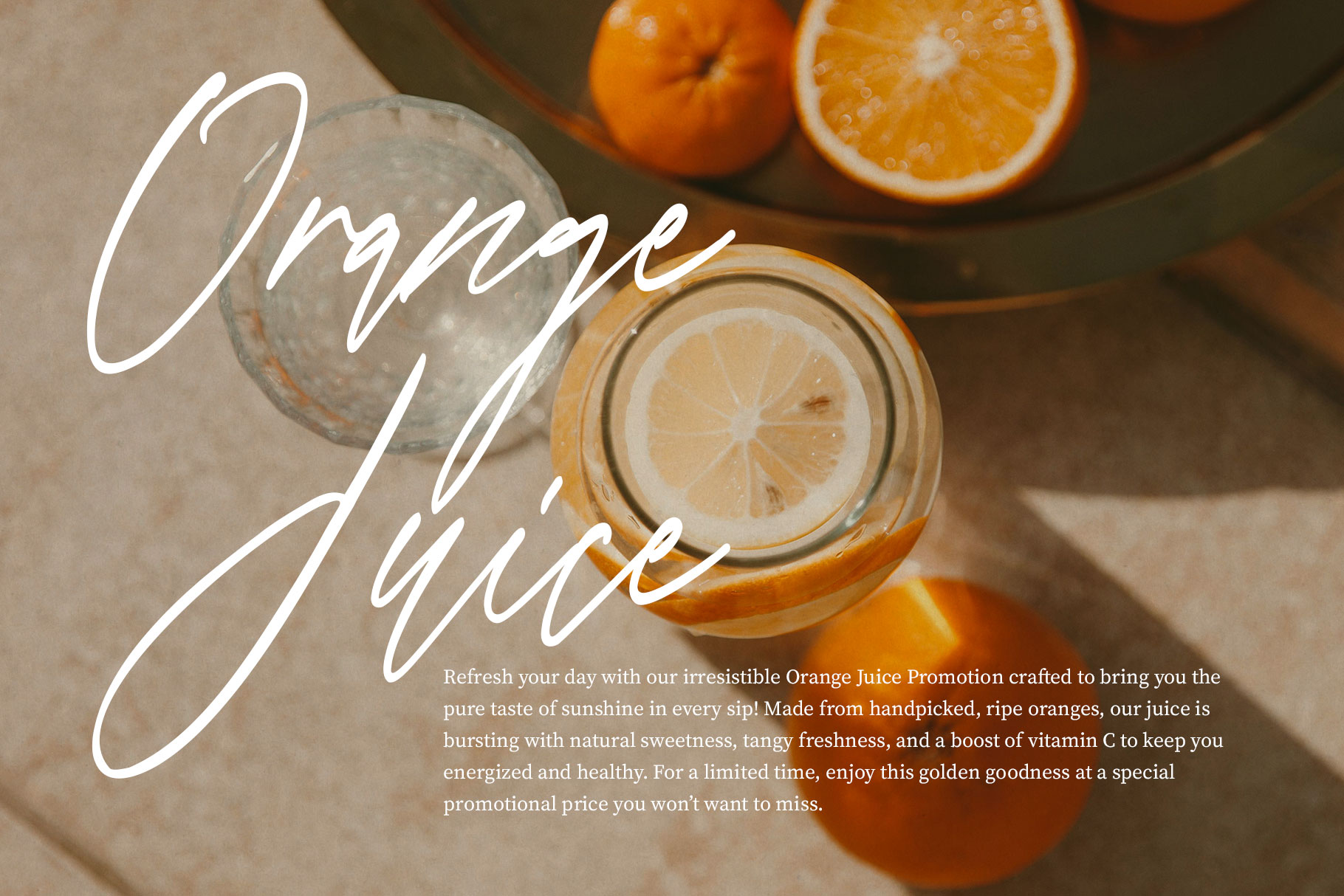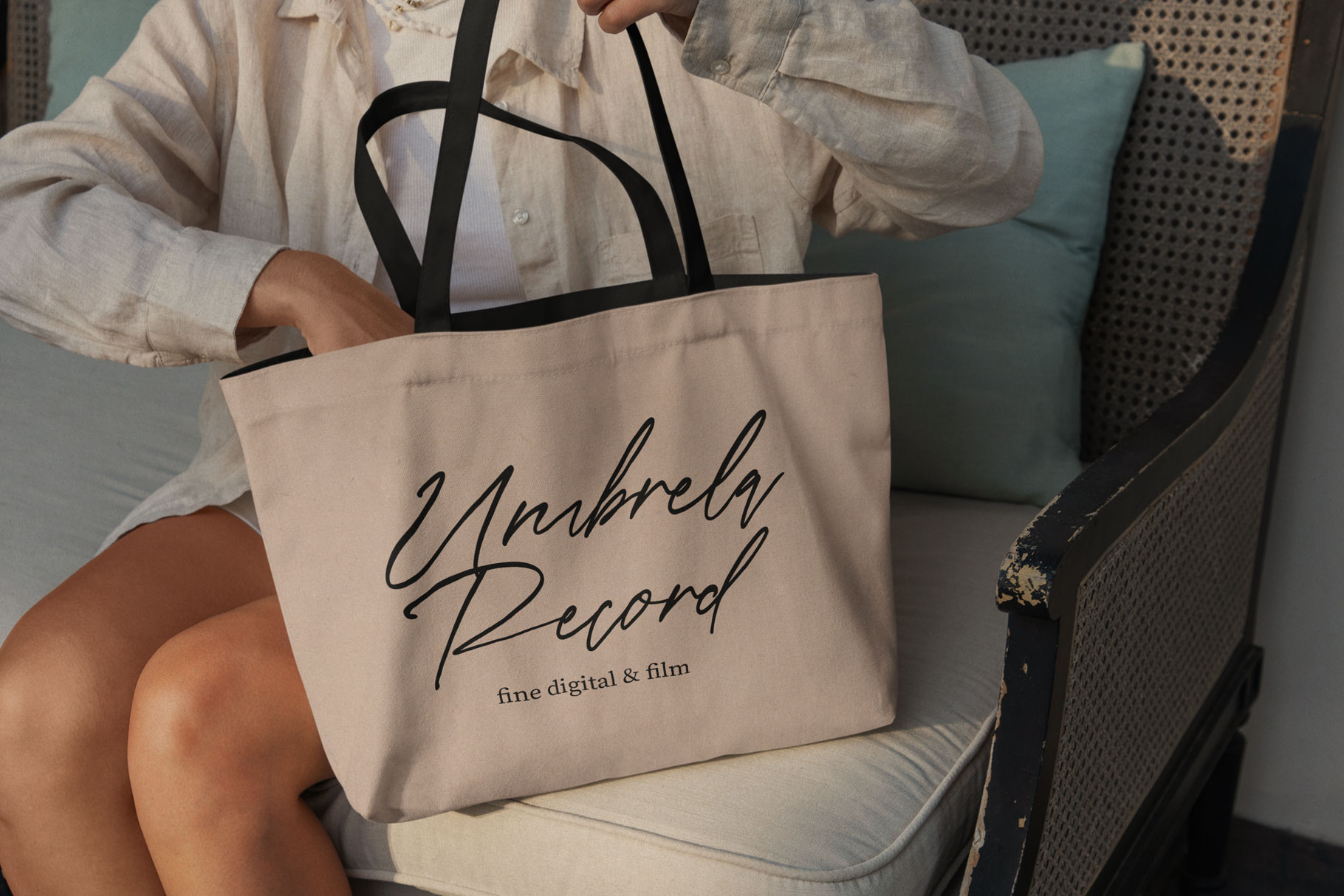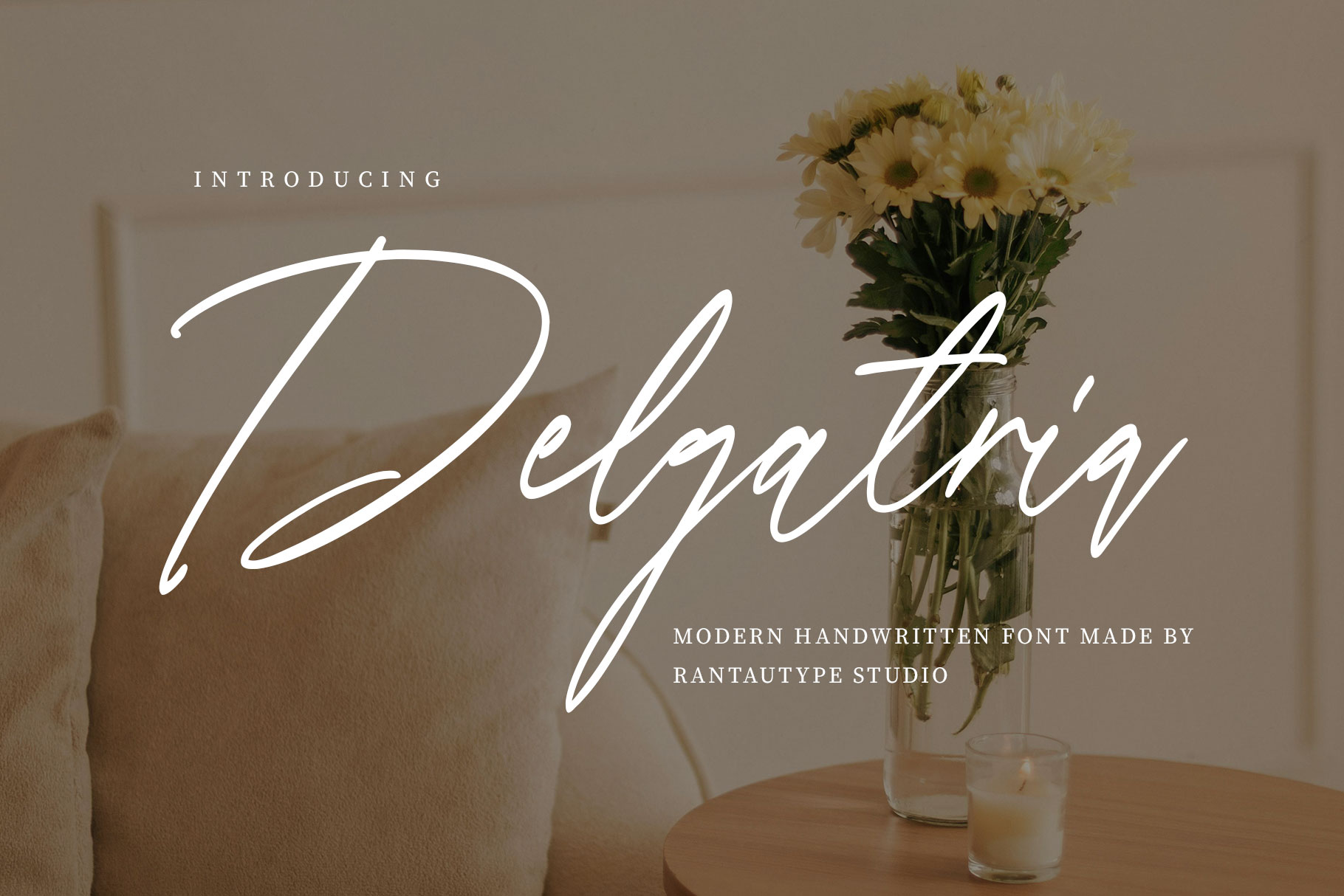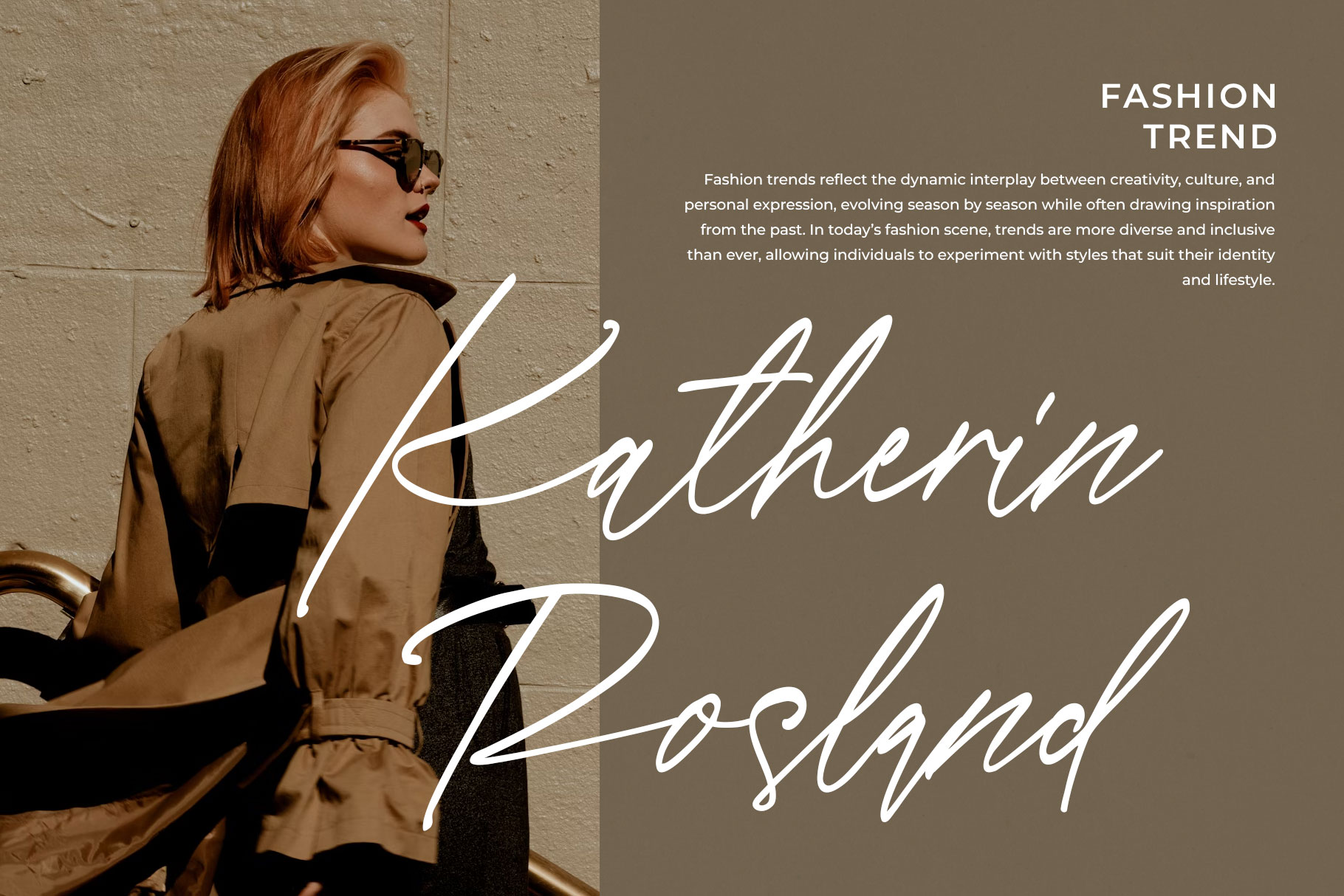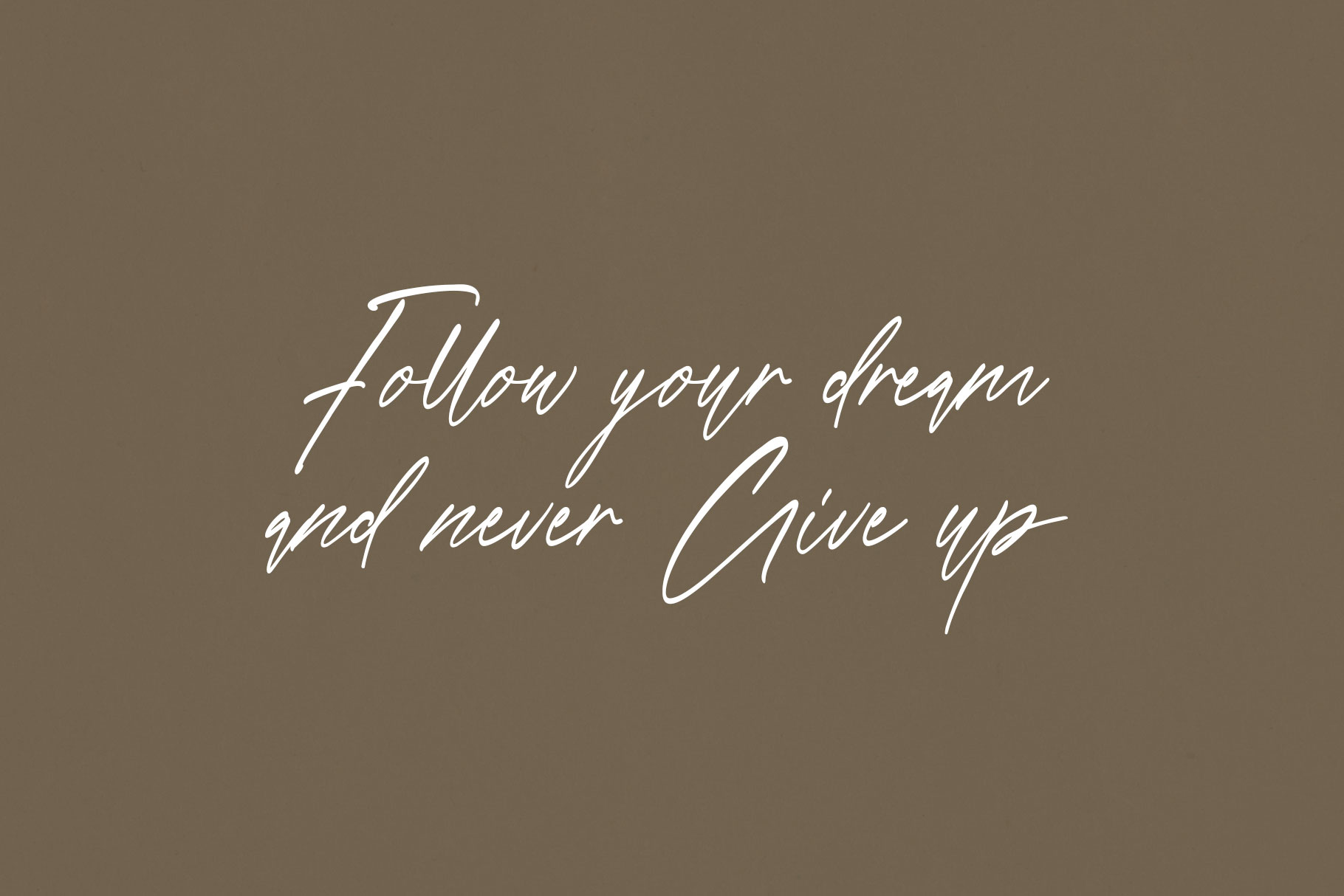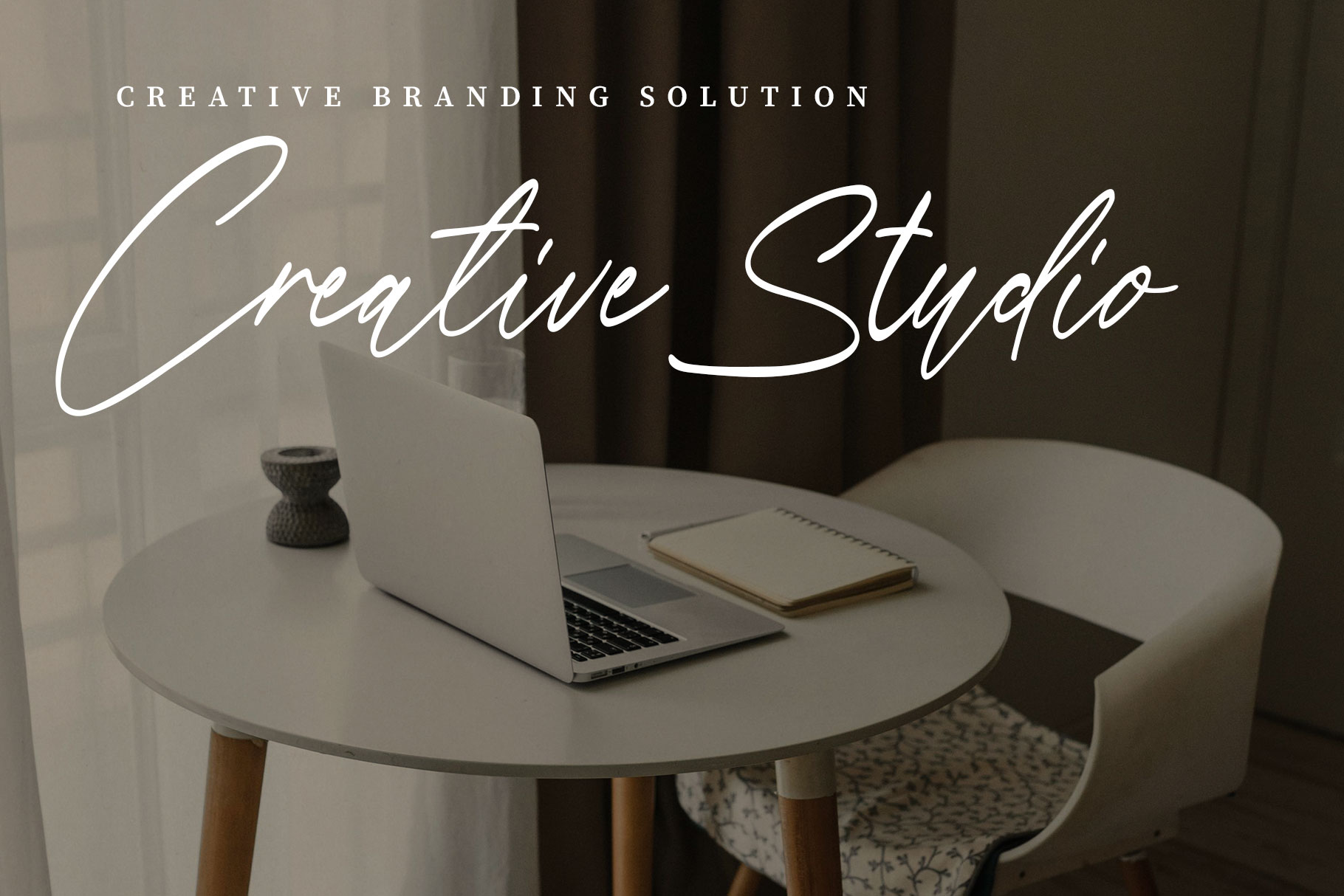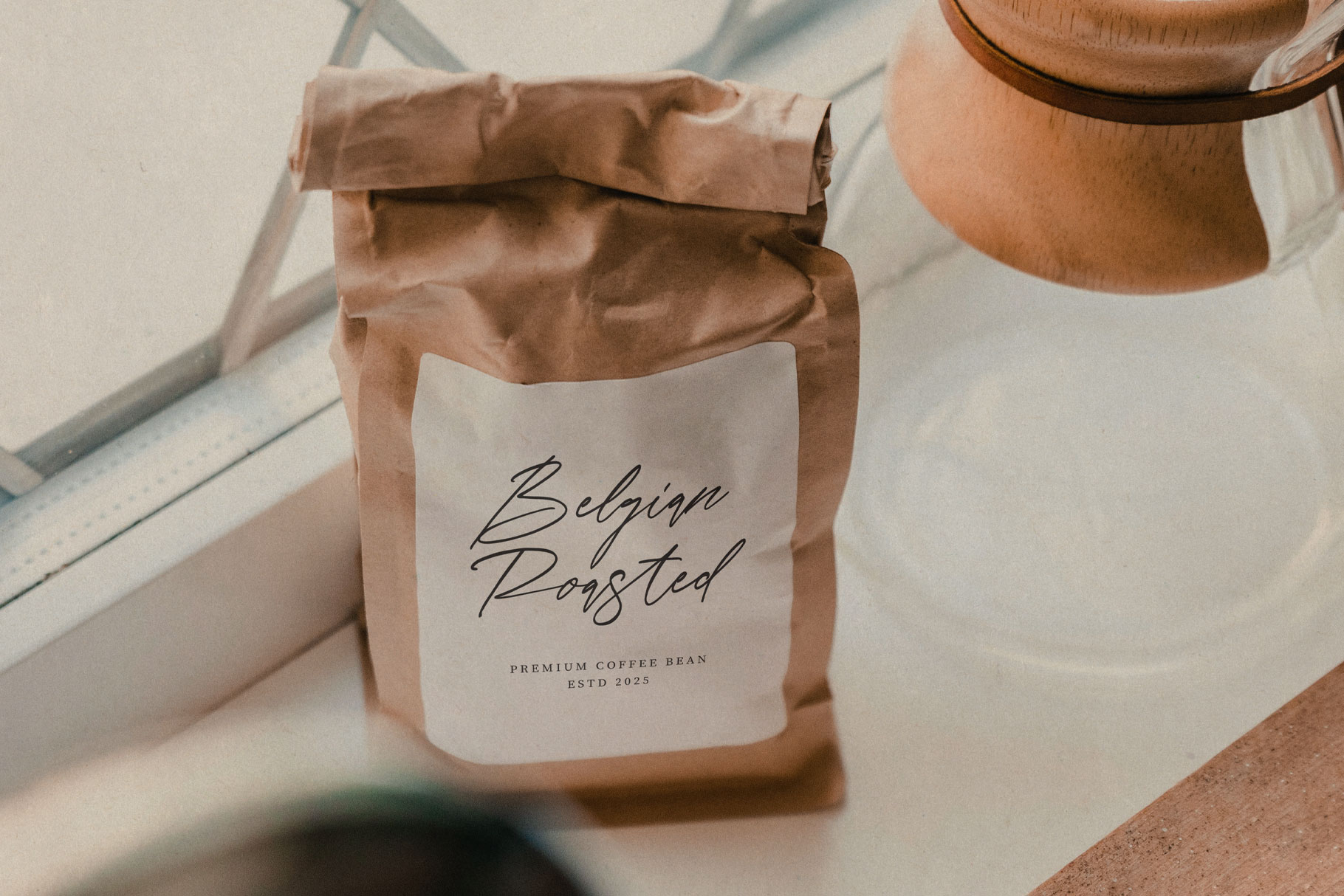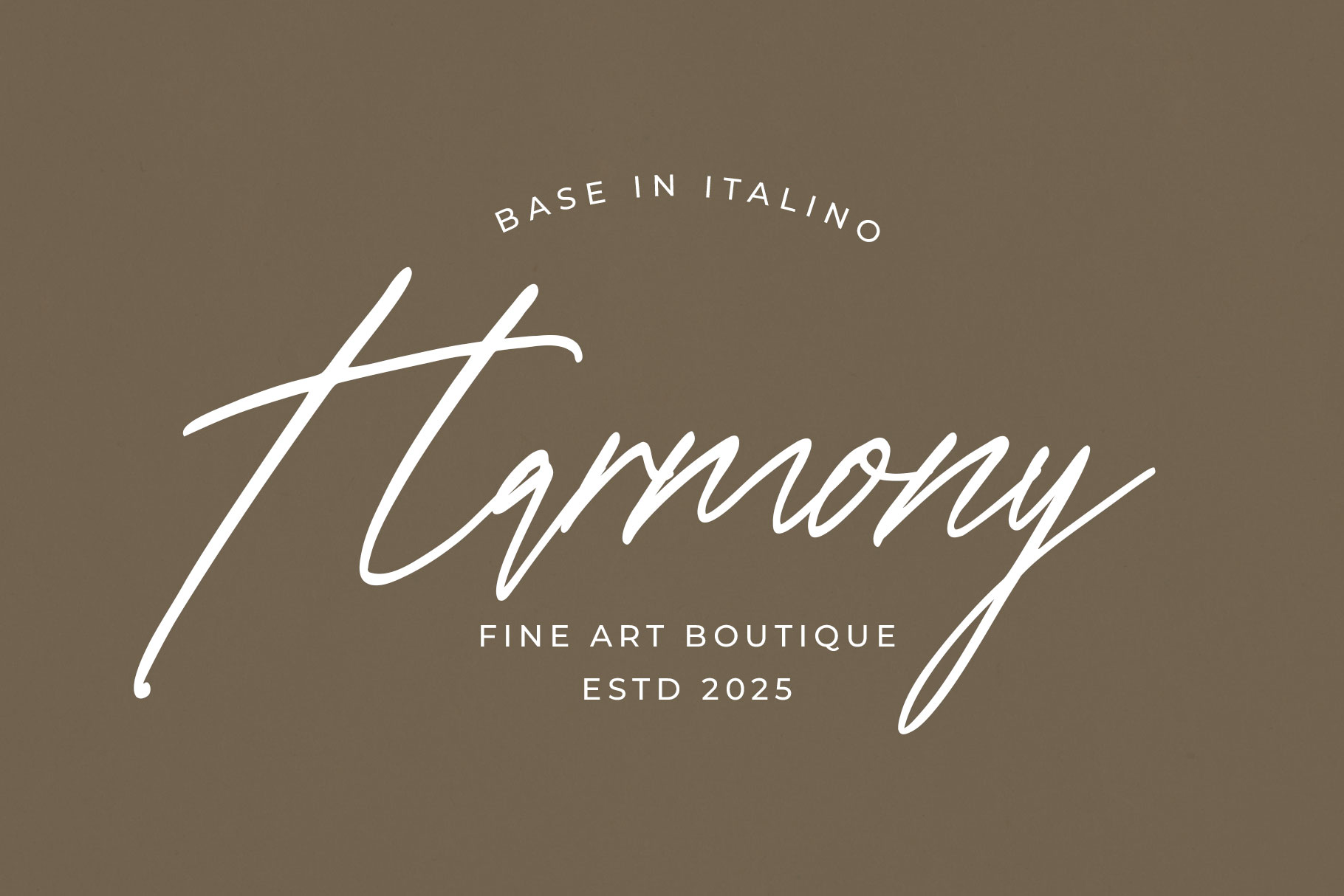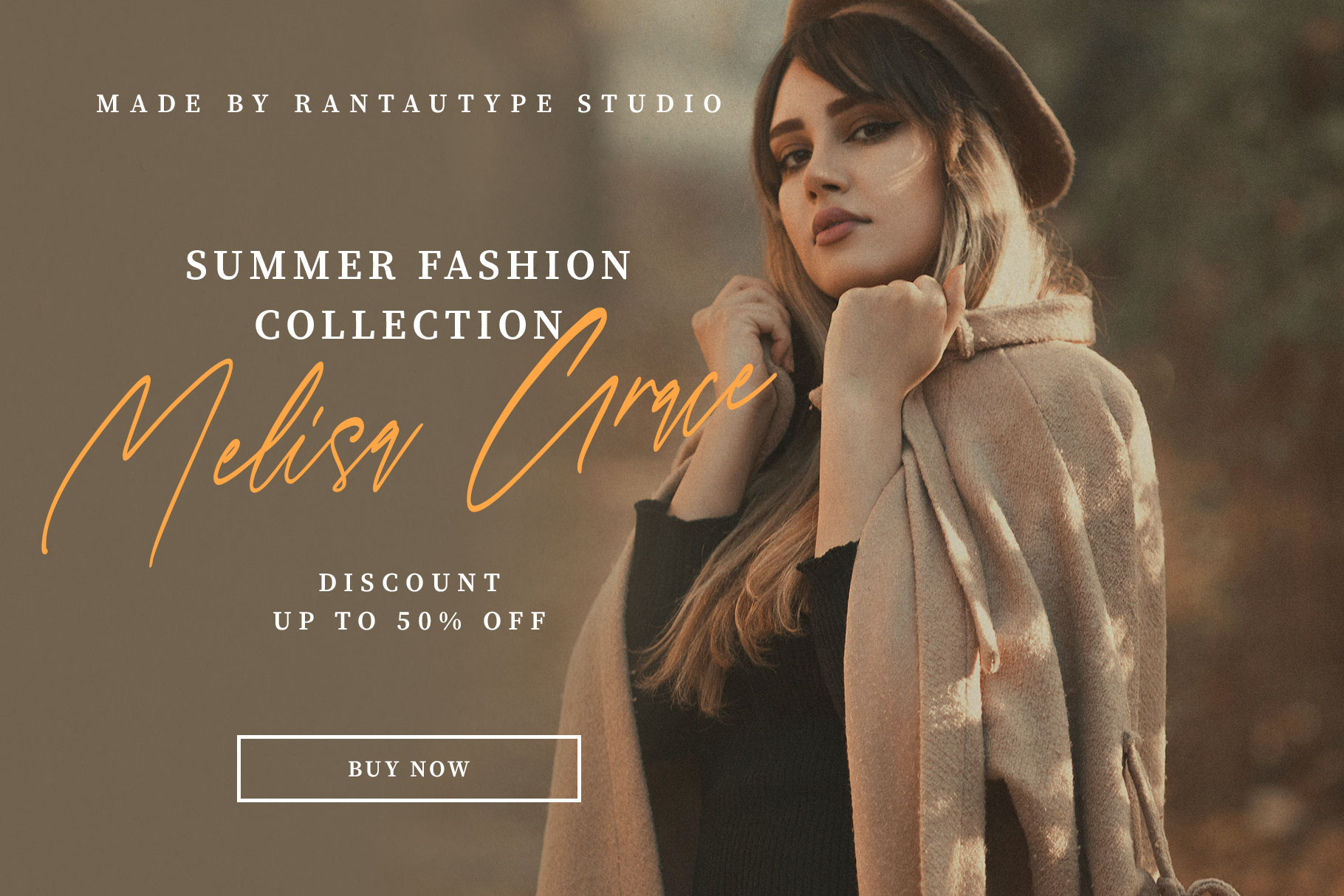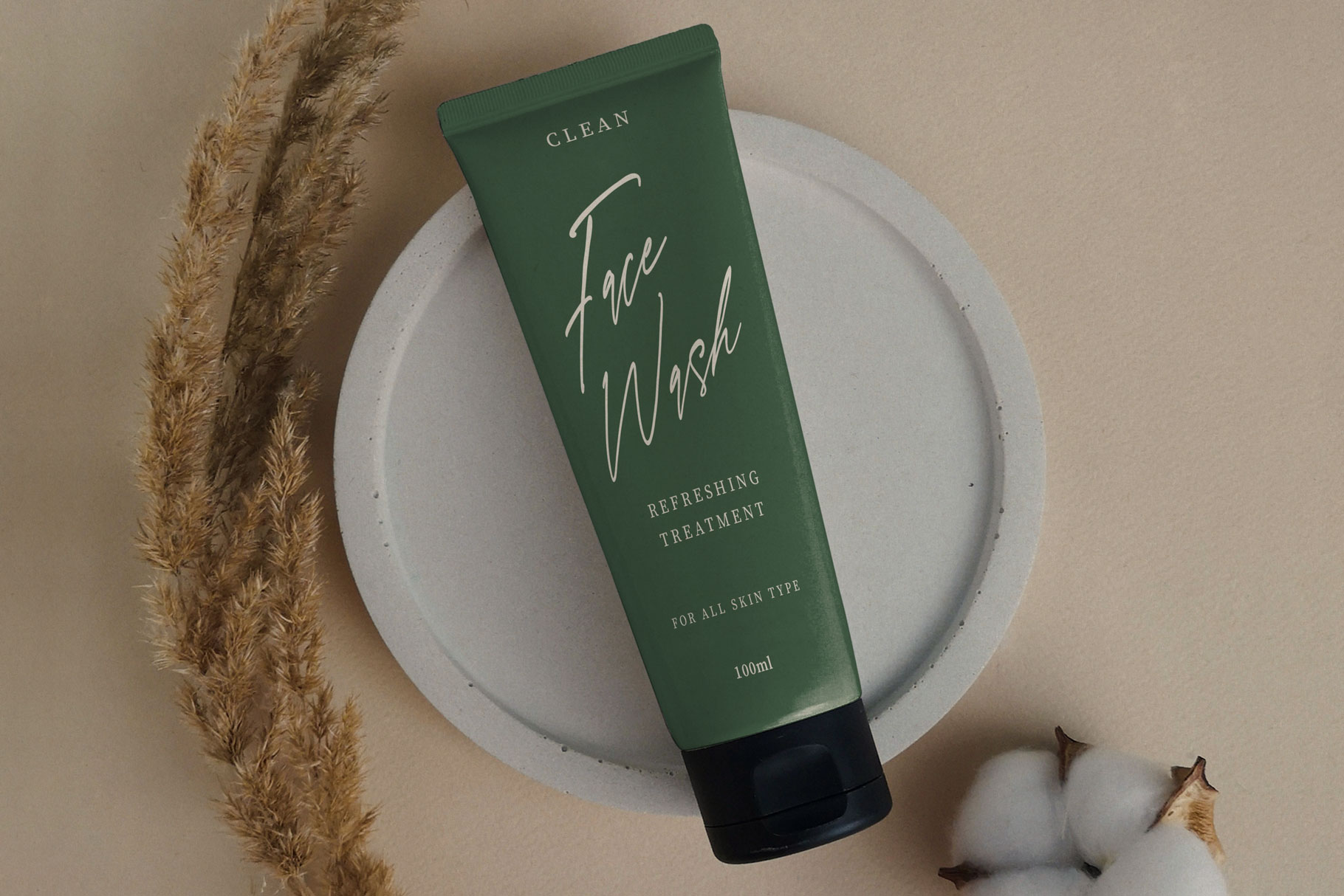
Delgatria Modern Handwritten Font
Delgatria is a modern handwritten font blends the personal charm of hand lettering with the sleek sophistication of contemporary design. Characterized by smooth curves, balanced proportions, and subtle variations in stroke, it offers a natural flow that feels authentic yet refined.
Delgatria is a perfectly choice for any creative endeavor, creating, modern, lifestyle design such as logotype, title, cover, branding, invitations, wedding designs, display and magazine, social media posts, advertisements, printed quotes, product packaging, corporate brand, product designs, labels, photography, watermarks, special events and any other project with modern touch.